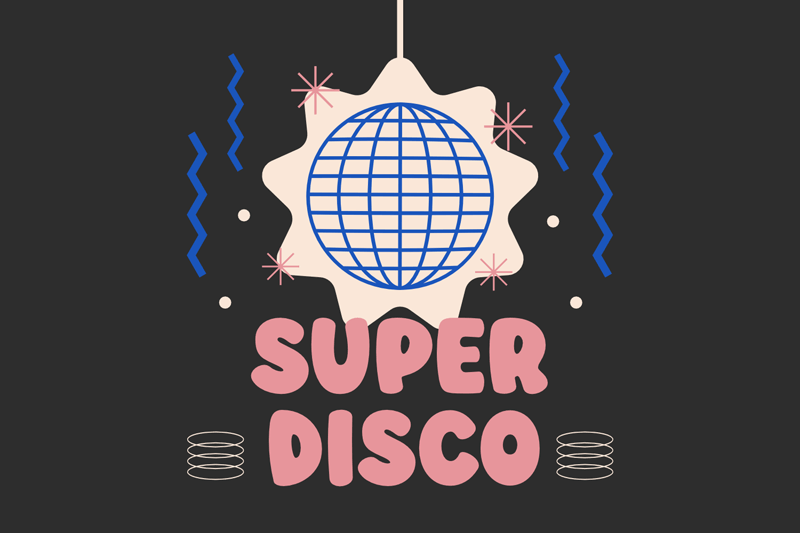
This font is for PERSONAL USE ONLY!. If you want to use this font for commercial purposes, you will need to purchase a commercial license. You can purchase a commercial license at https://nhfonts.etsy.com/listing/1642051531/super-disco-font Super Disco: This font isn't just catchy, it's a full-blown invitation to the dance floor! Imagine roller skates gliding across a glitter-strewn rink, spotlights flashing on sequined jumpsuits, and a soundtrack straight out of a Saturday morning cartoon. Super Disco captures that vibrant energy and throws it onto the page in a font that's both fancy and fuss-free. |